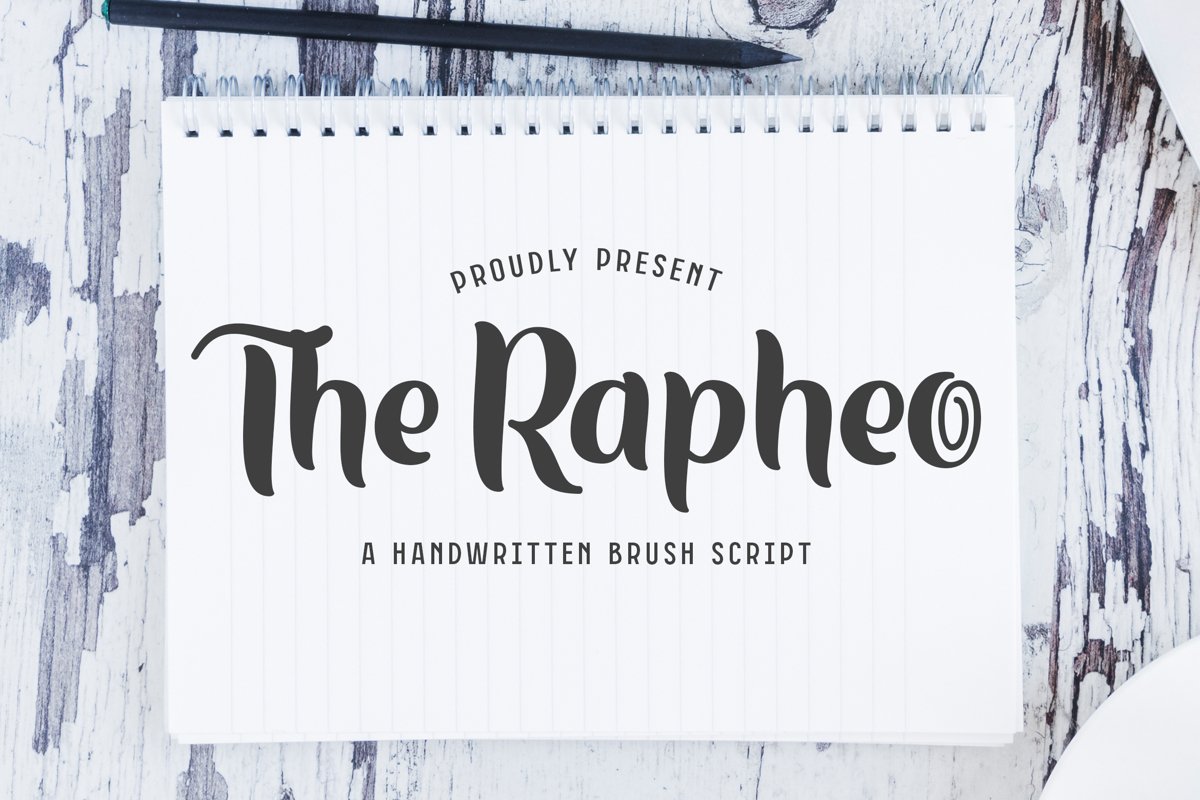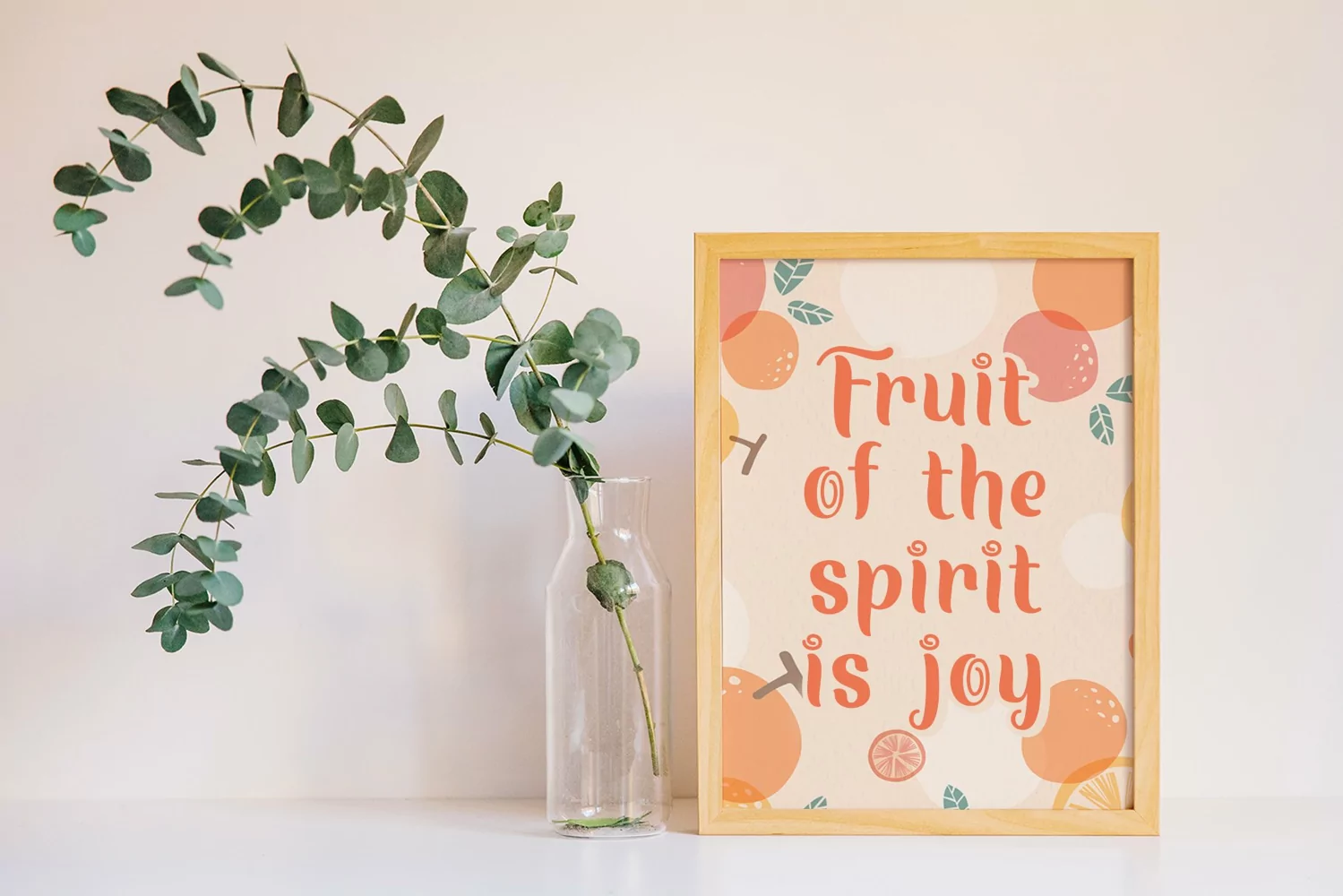
Rapheo is a display typeface. Perfect for display, quotes, business card, emblem, badges, logo, logotype, crafting needs, header, tittle, merchandise, greeting card and many more.